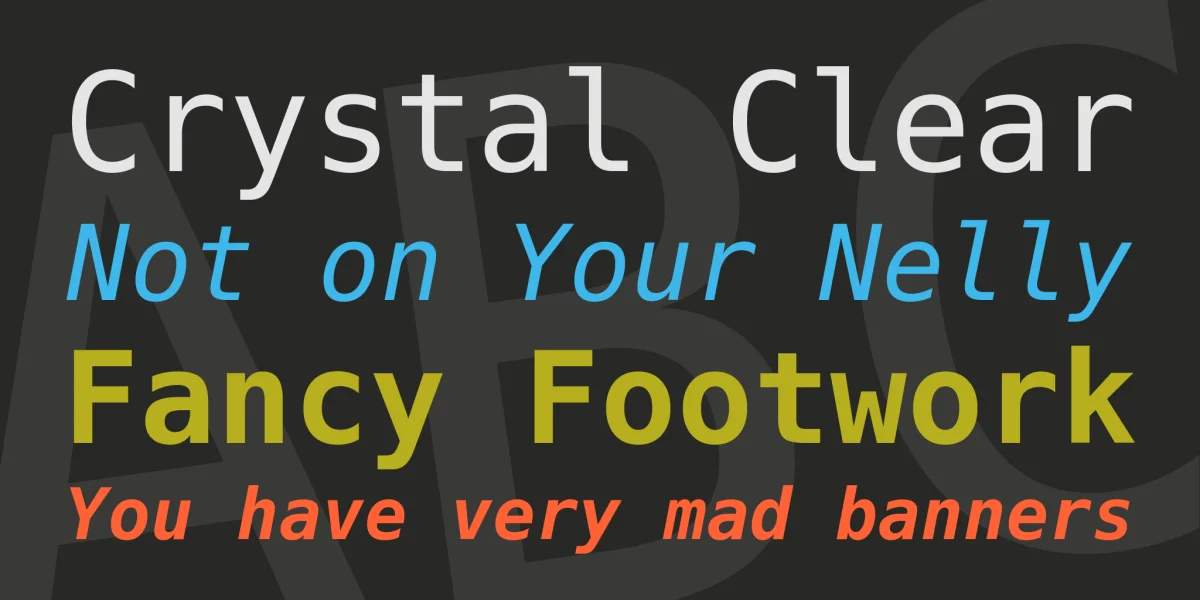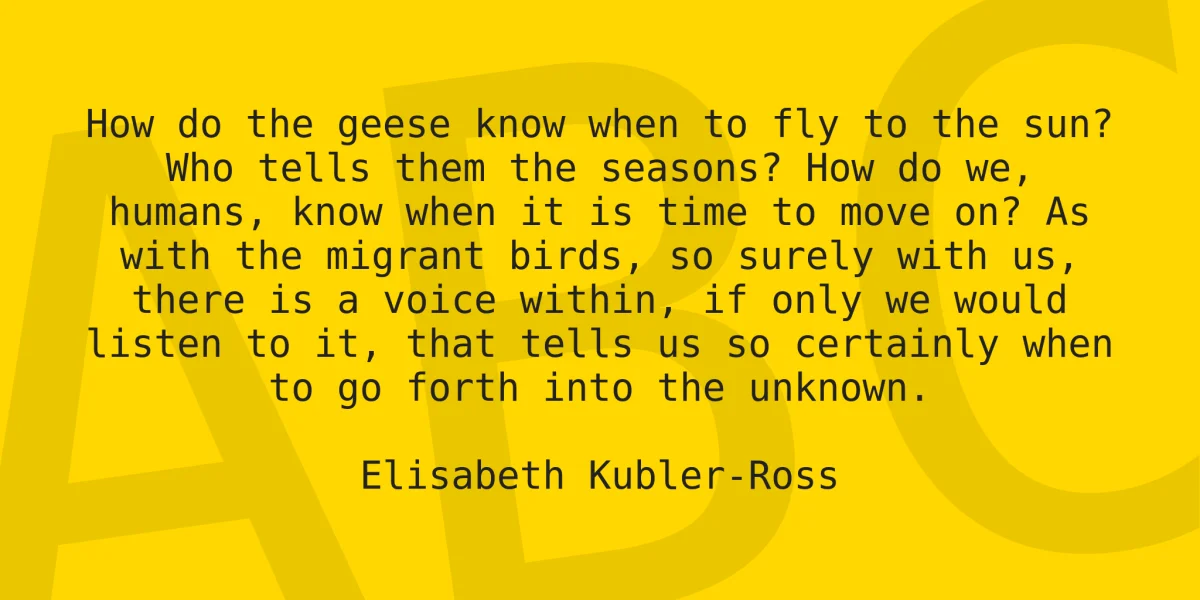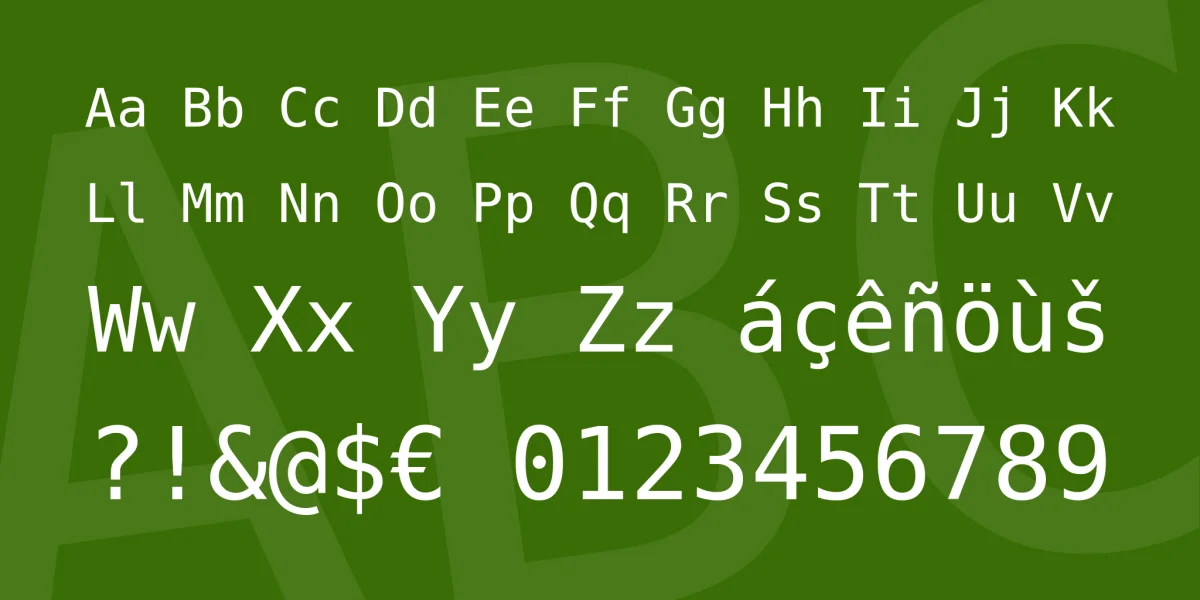
The DejaVu fonts are a font family based on the Vera Fonts. Its purpose is to provide a wider range of characters while maintaining the original look and feel through the process of collaborative development.